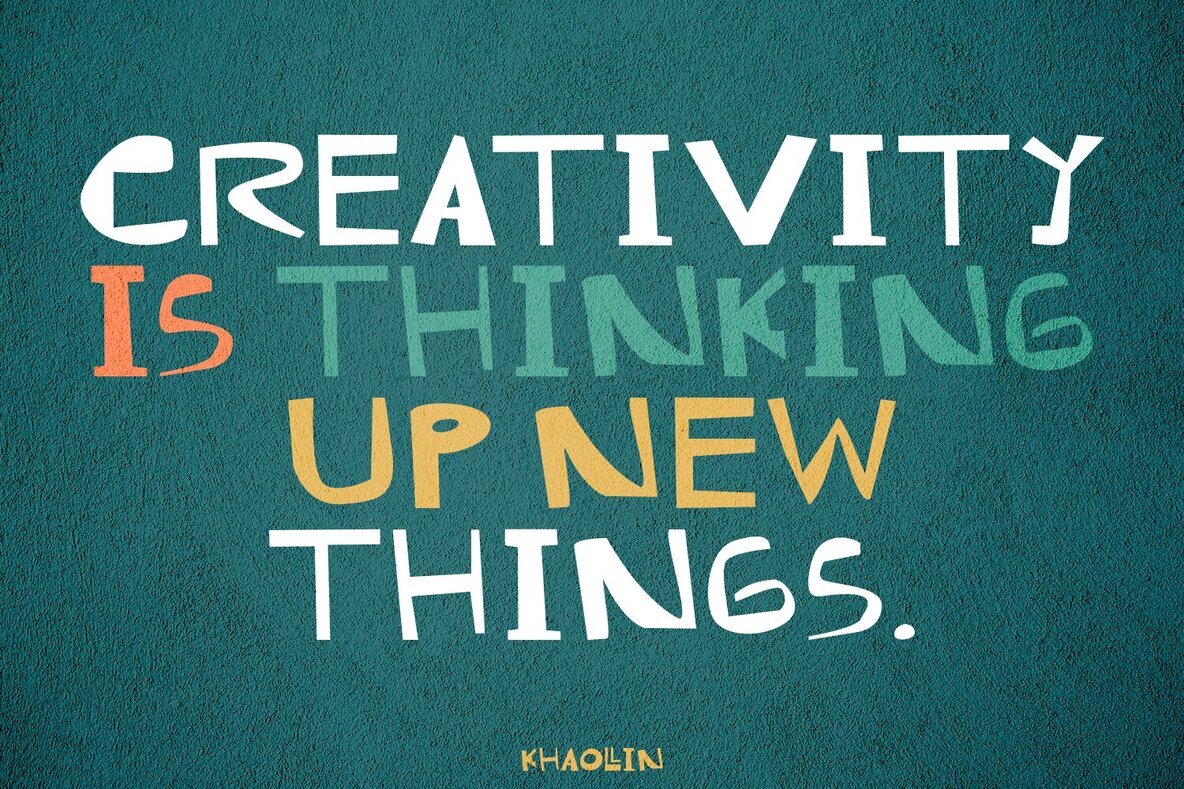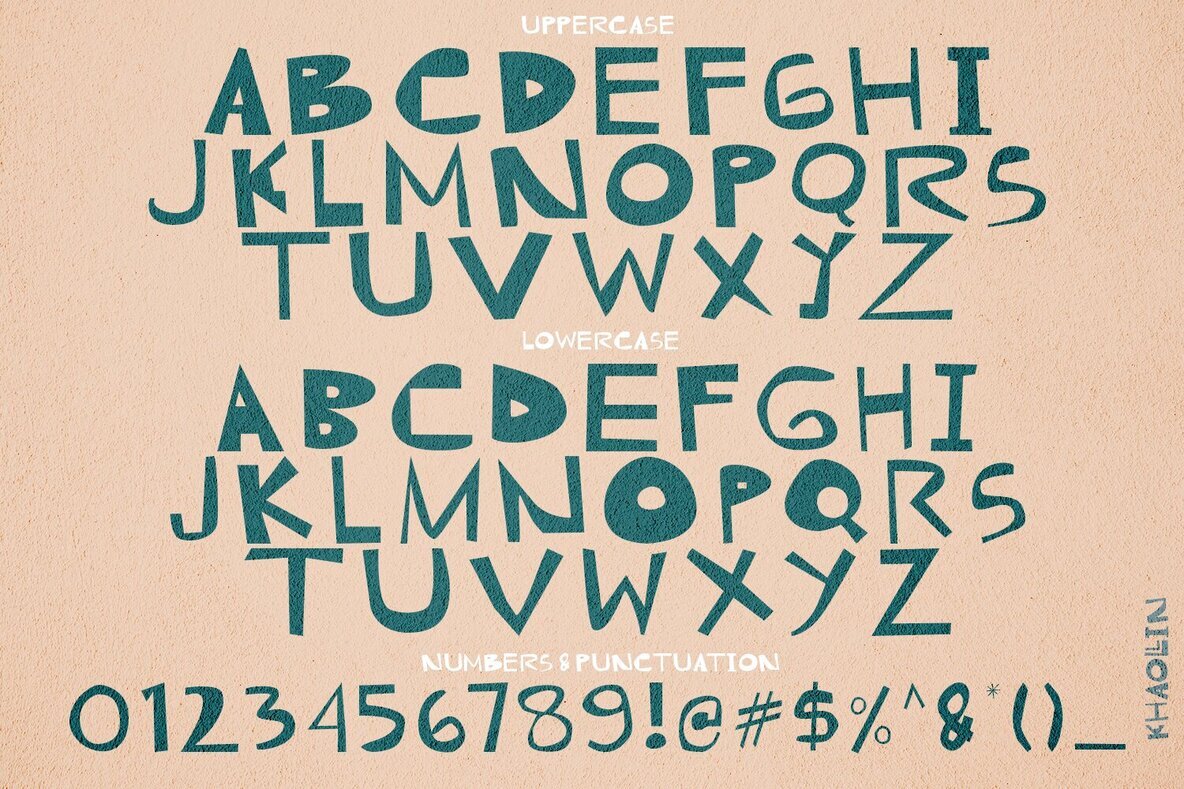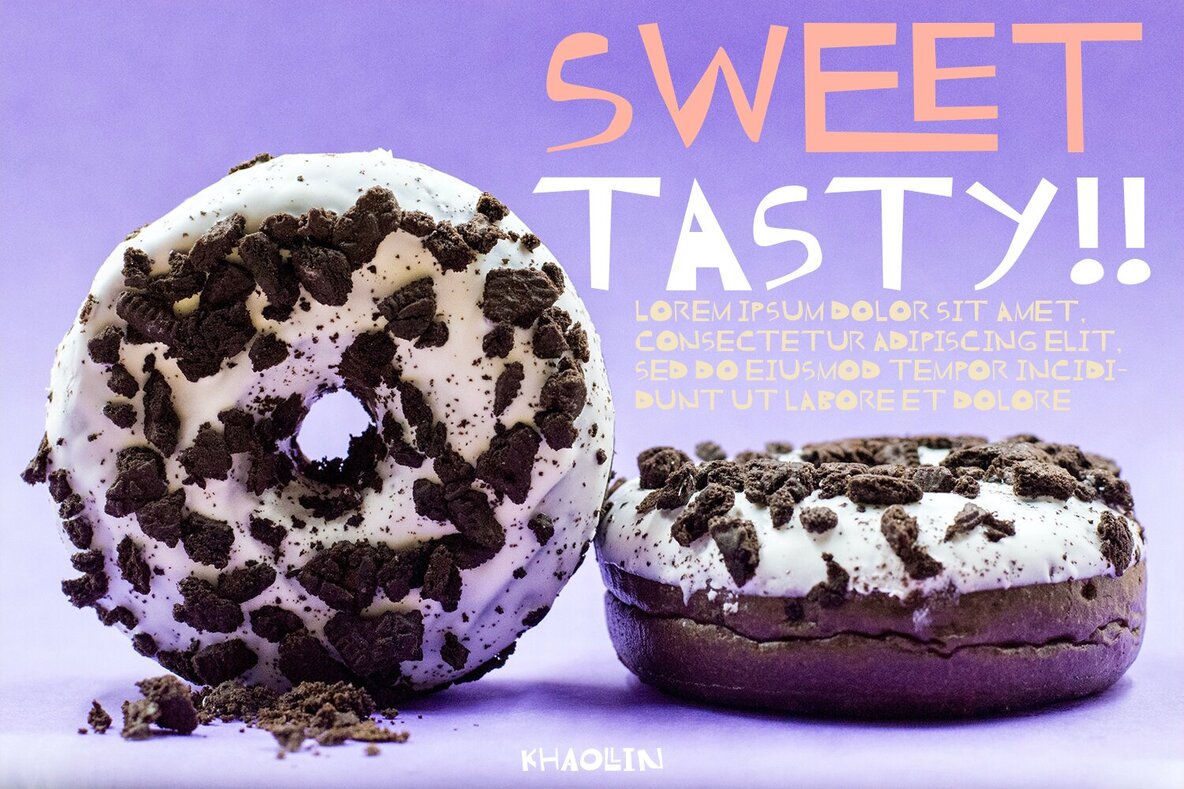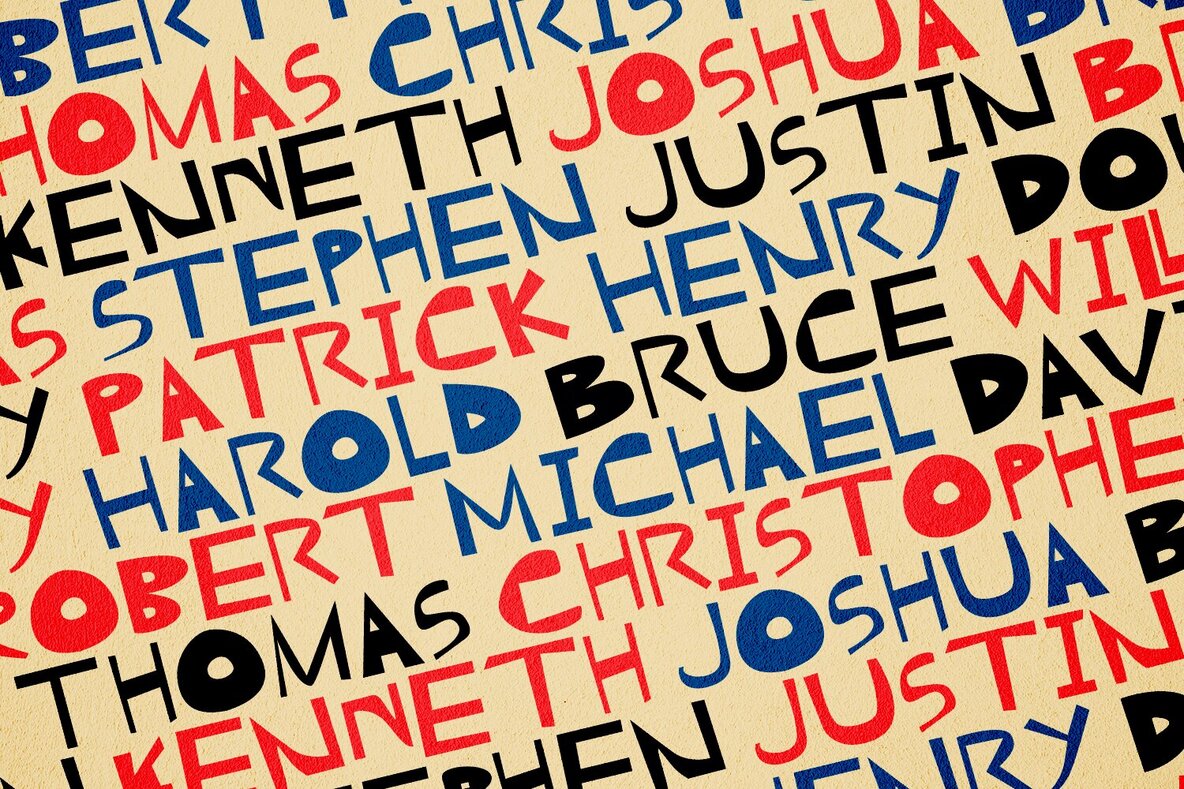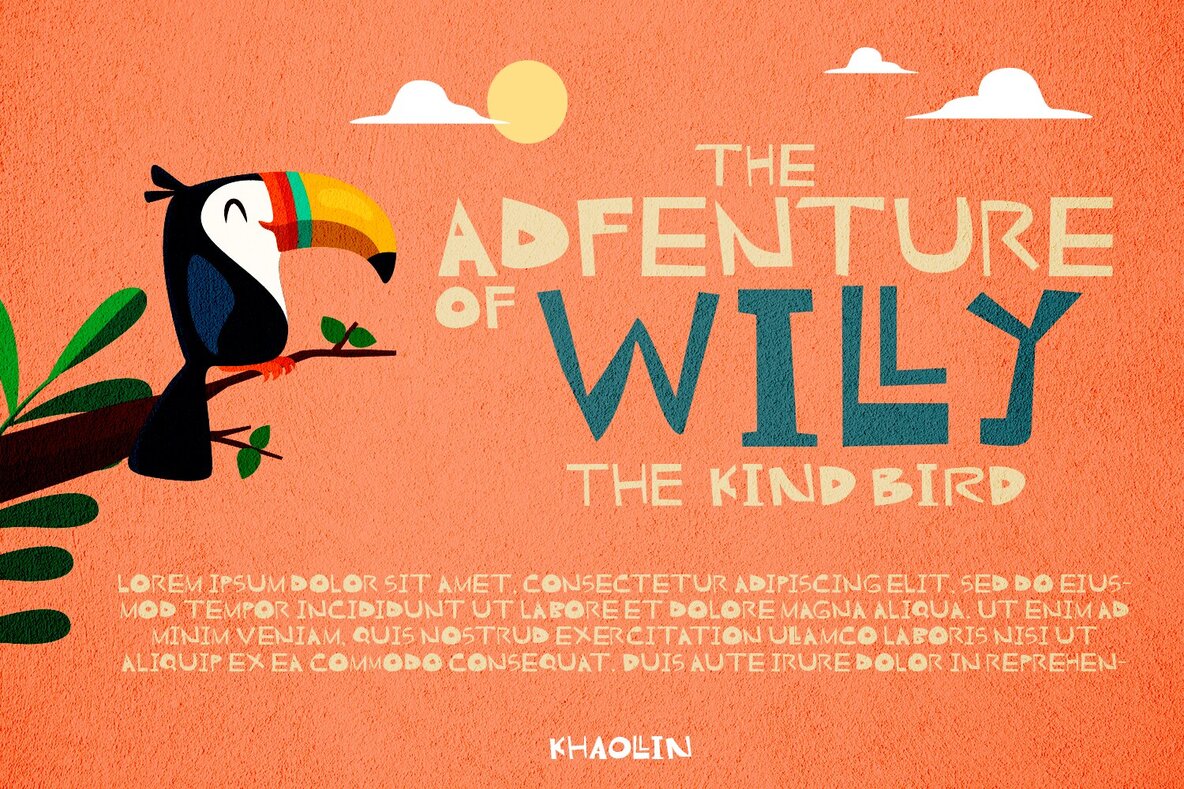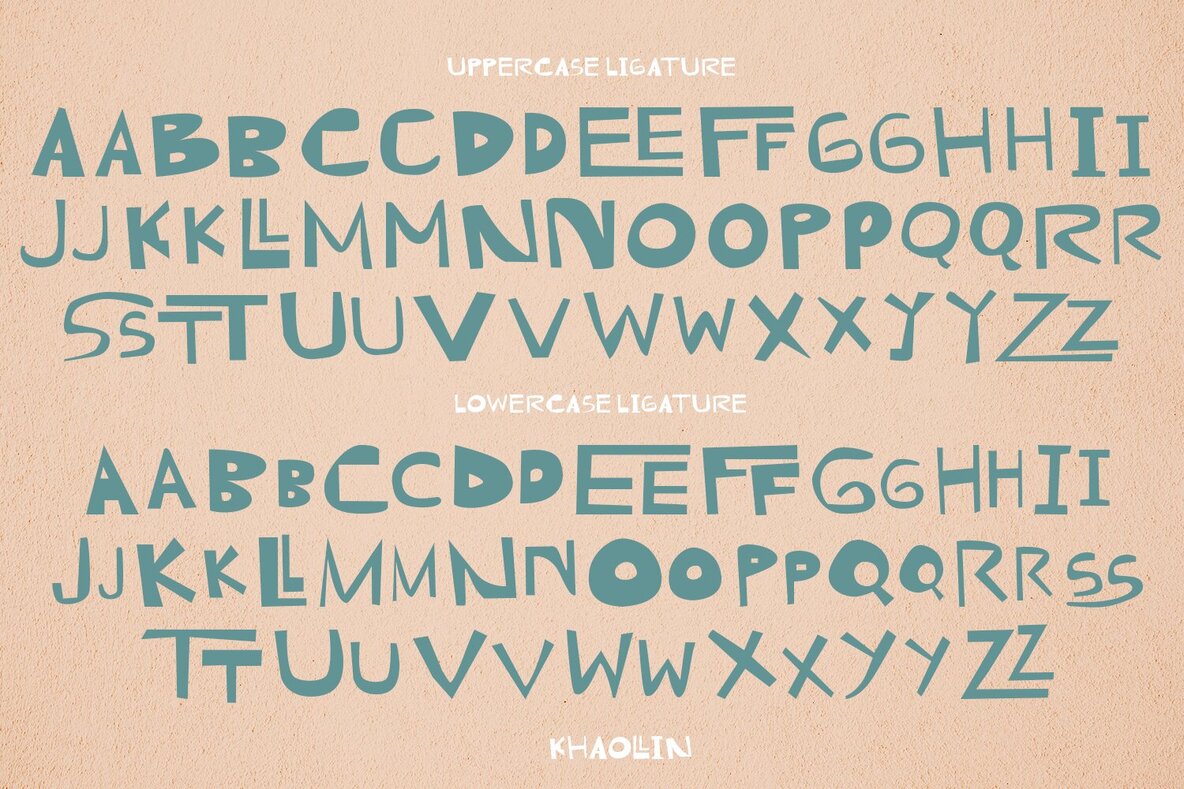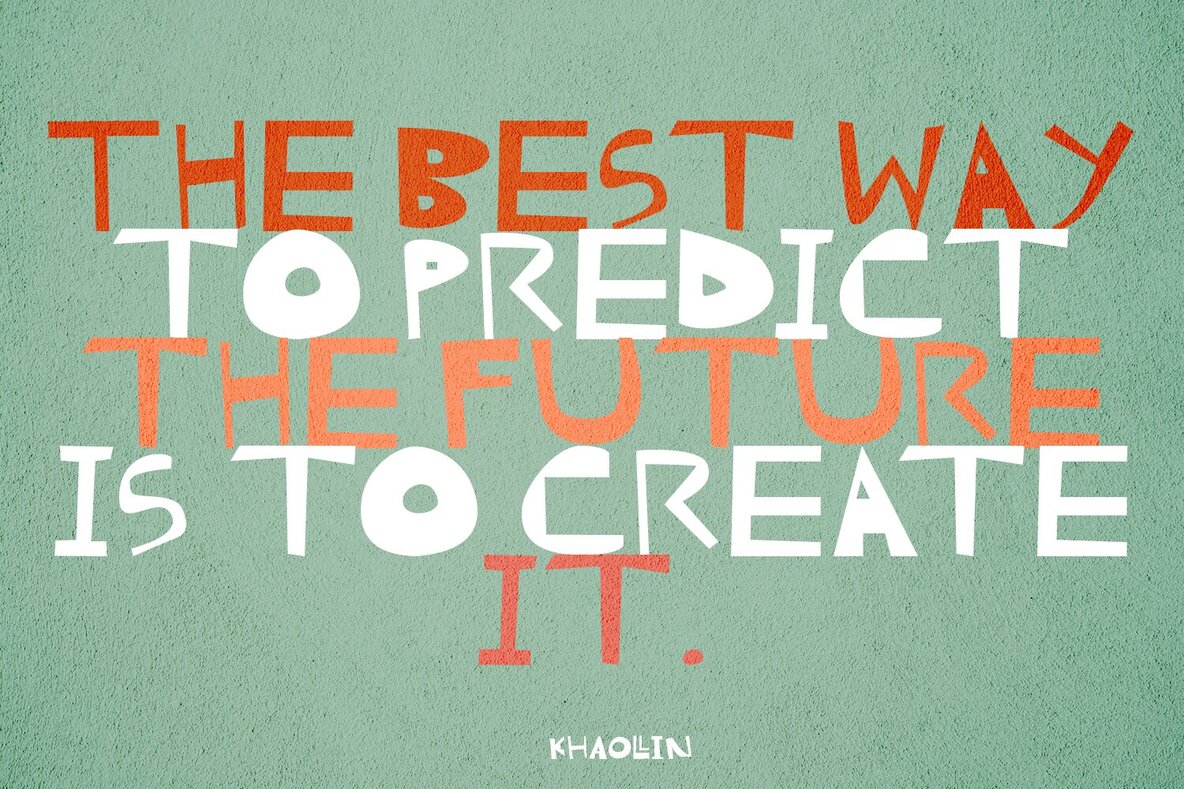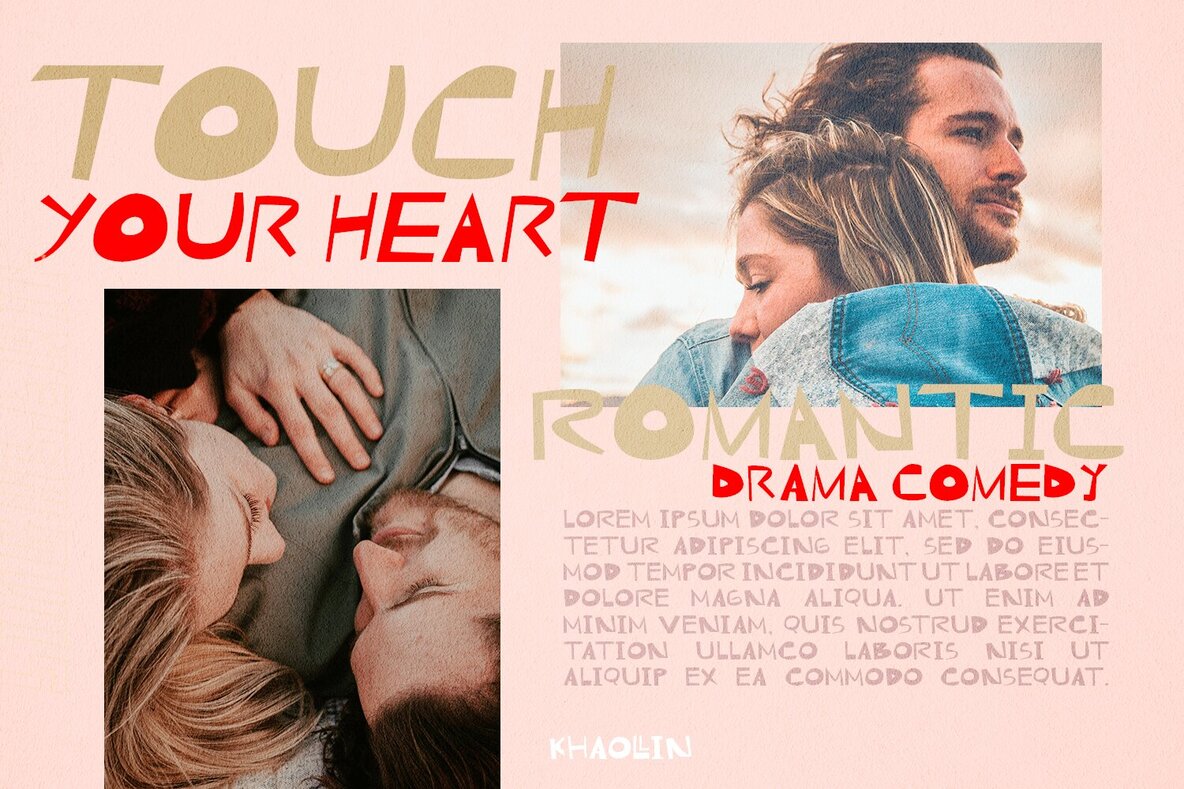
Khaollin Font
Khaollin
Introducing The Khaollin is a playful font and will be perfect for book, title branding, product packaging, invitation, quotes, t-shirt, label, poster, logo etc.